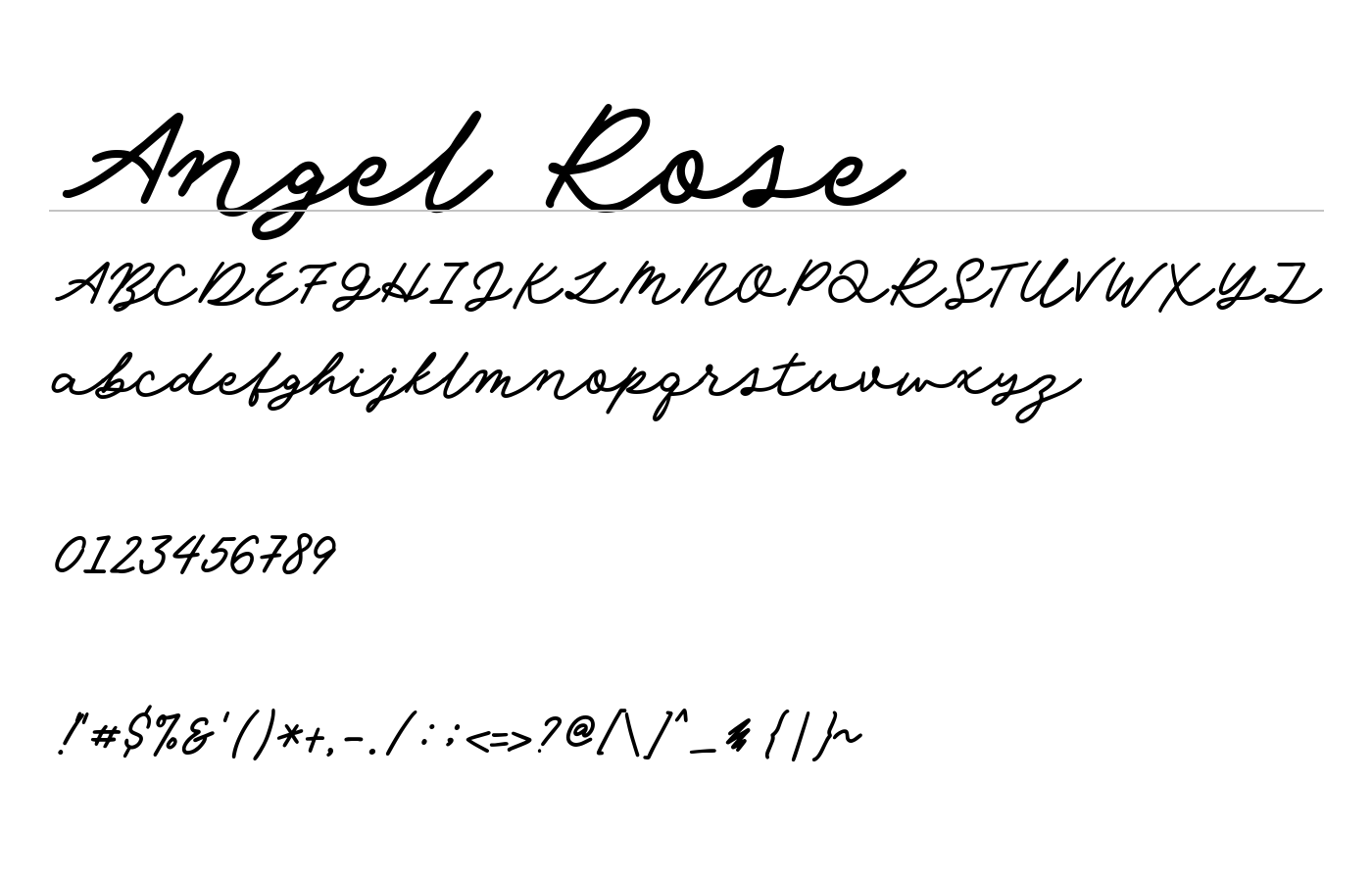
Angel Rose is a graceful script font that mimics elegant, natural handwriting with smooth, flowing strokes and moderate contrast. Its airy letterforms and fluid connections offer a personal, refined feel, making it ideal for invitations, branding, and projects that seek a delicate, sophisticated touch. This font works beautifully in designs wanting to convey warmth and elegance while maintaining readability.
Angel Rose Font
About Angel Rose Font
| Font family | Angel Rose Font |
| Designer | Jennifer Chow |